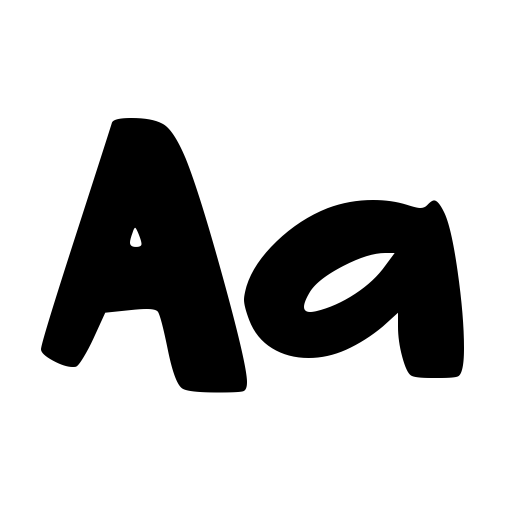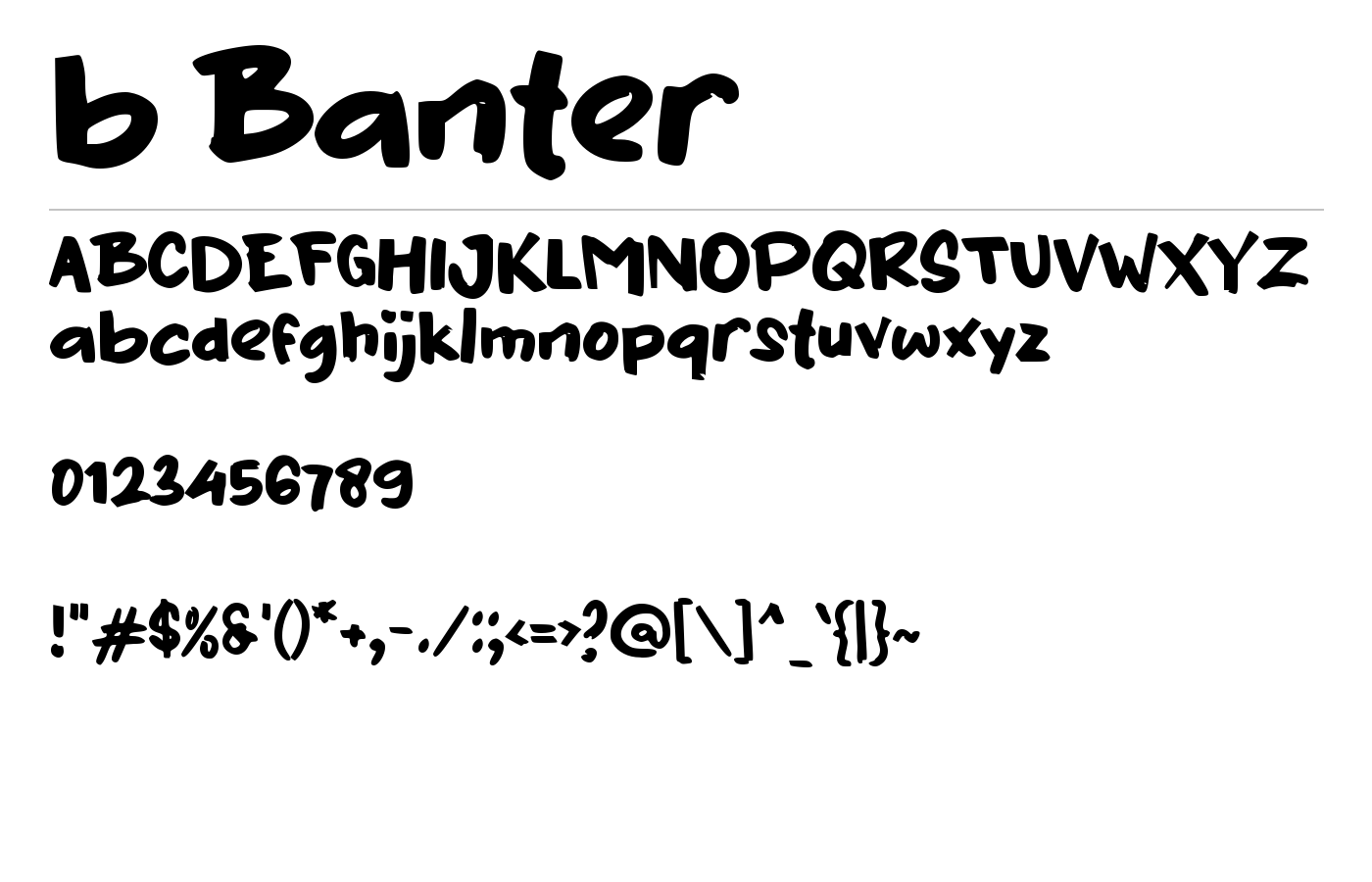
b Banter is a playful and informal sans serif font with a hand-drawn, casual feel. Its bold weight, irregular shapes, and lively strokes make it great for adding personality and a friendly tone to designs, perfect for children’s books, fun branding, and creative projects. This font stands out in headlines, logos, and packaging where a warm, approachable vibe is desired.
b Banter Font